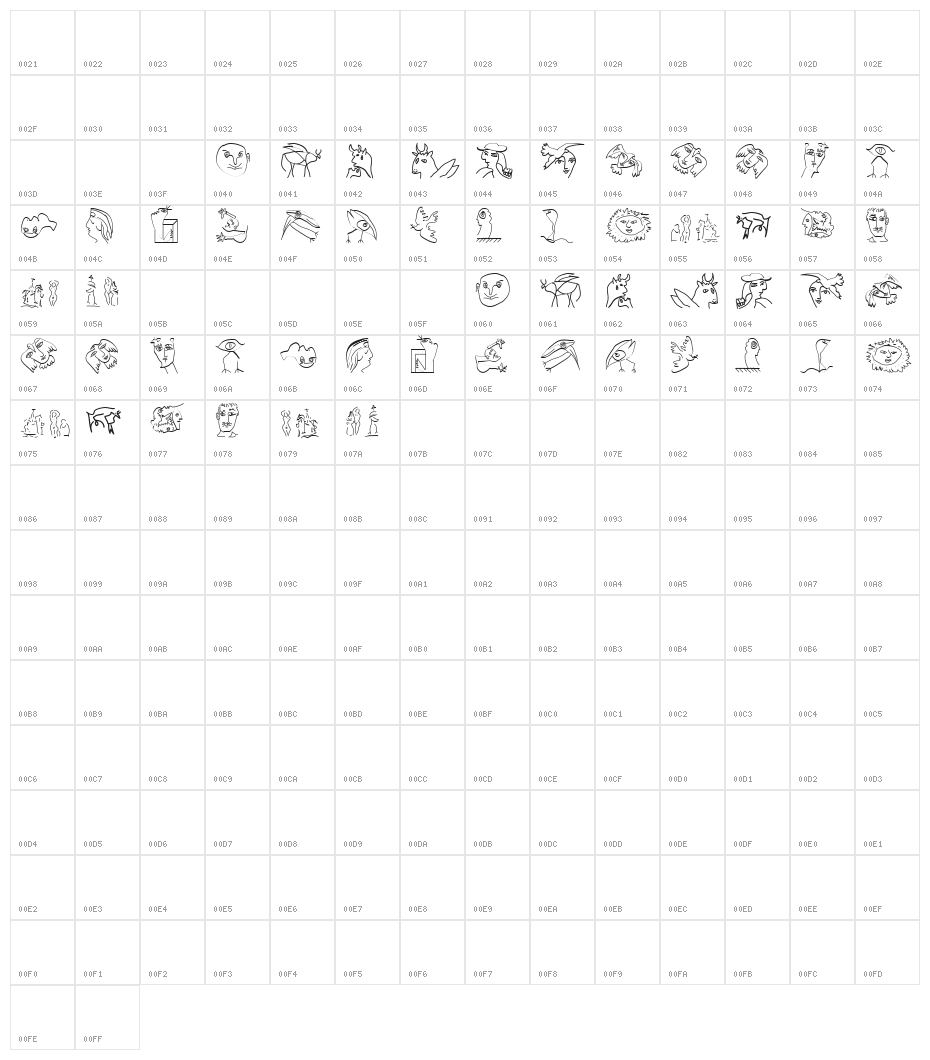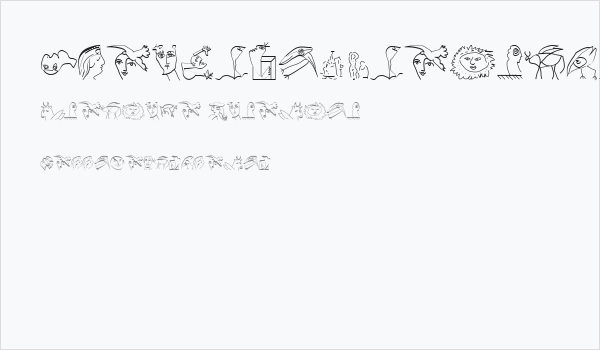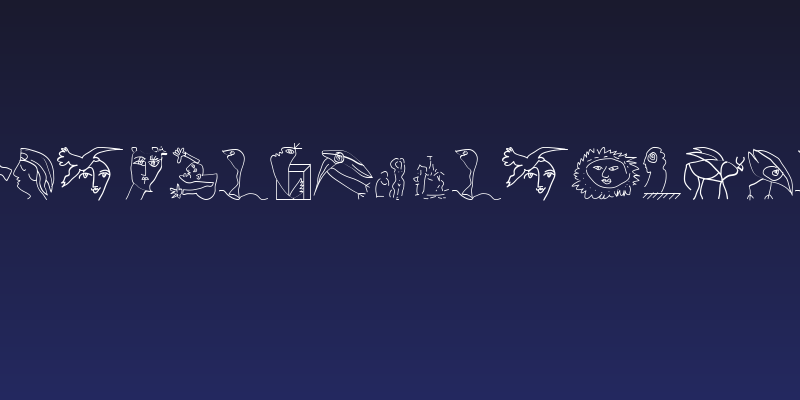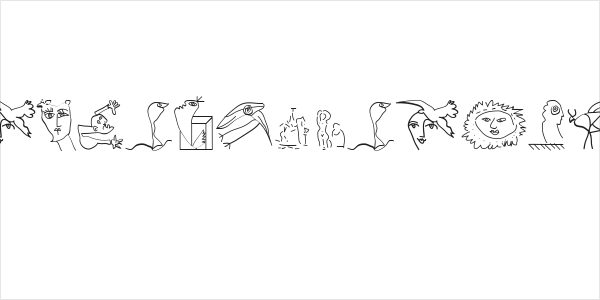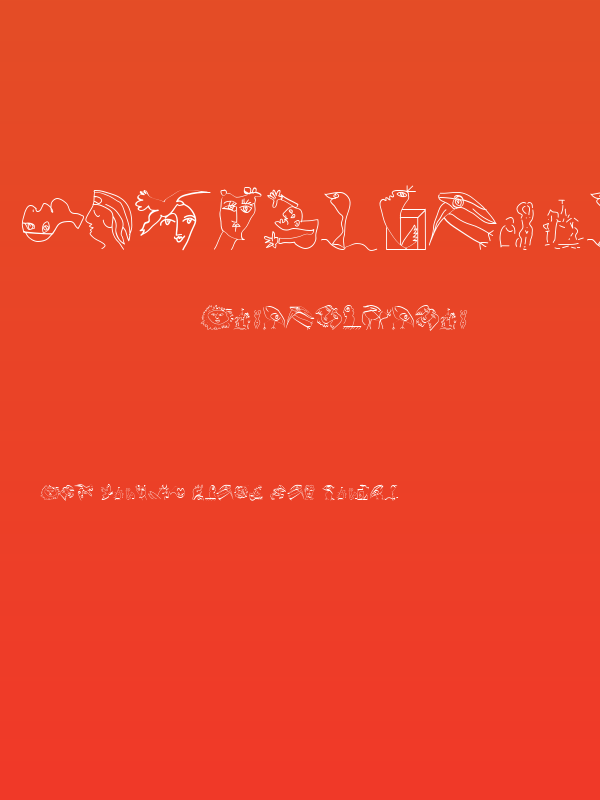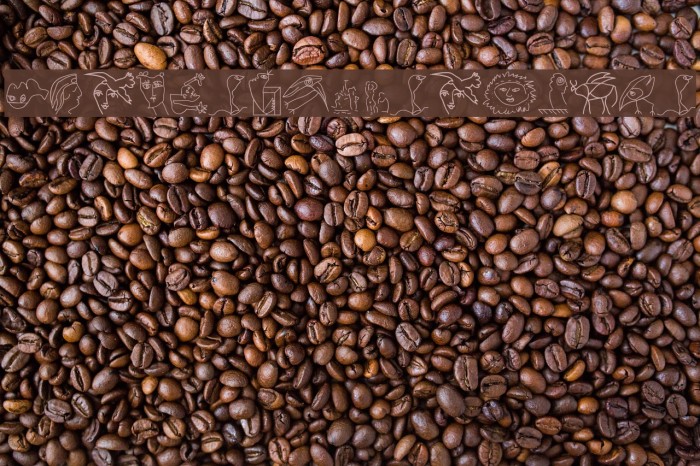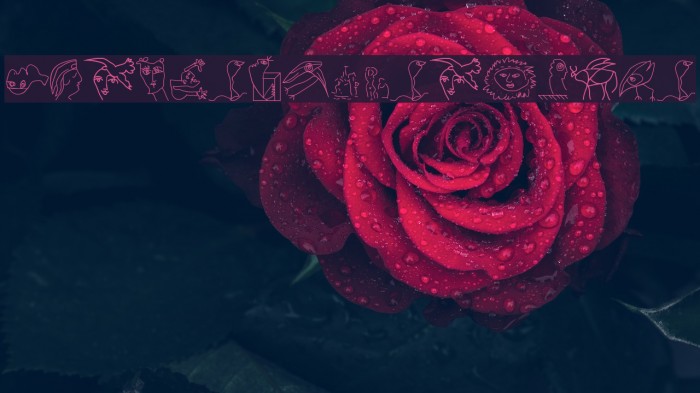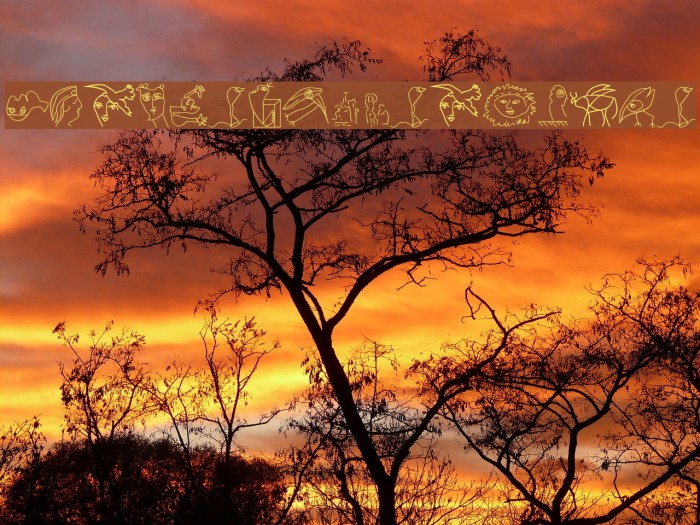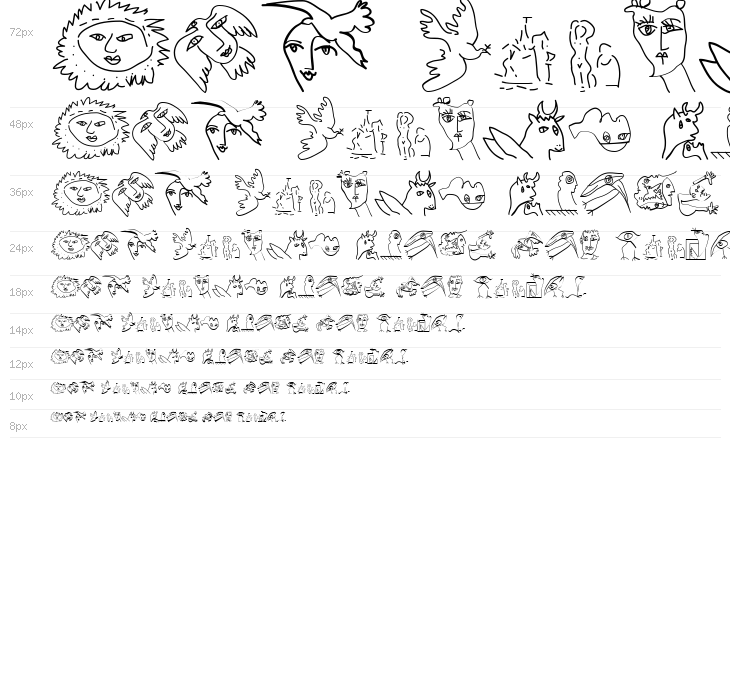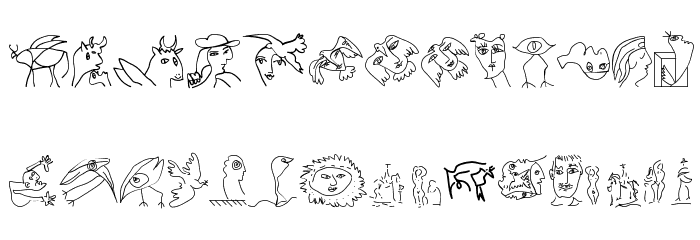
KleinsMouseTraps Font
KleinsMouseTraps Description
This unique and artistic font features a series of abstract, continuous line drawings that resemble various whimsical characters and creatures. Each character is crafted with a single, unbroken line, creating a fluid and dynamic appearance. The style is reminiscent of modern art, with a playful and imaginative twist. The characters vary in complexity, with some being simple outlines and others more detailed. This font is not designed for traditional readability but rather for decorative purposes, adding a creative and artistic flair to any project. Its distinctive style makes it a standout choice for projects that require a touch of originality and artistic expression.
| Overall Style | Modern, Artistic |
| Use Case | Decorative elements, Artistic projects |
| Proposed Projects | Ideal for creative projects such as art posters, album covers, unique branding, and decorative elements in graphic design. |